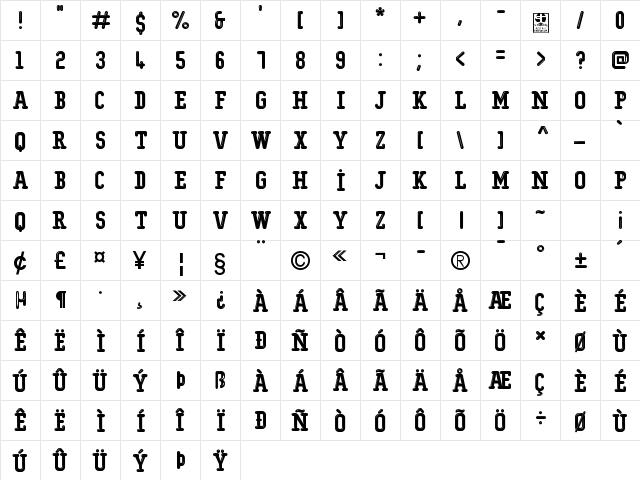
Typo College Shining Demo Regular
Design Context for Typo College Shining Demo Typeface
Typo College Shining Demo brings high-energy athletic personality to the page — its confident, muscular forms are built for impact.
Built for sports team identities, athletic apparel, event posters, and high-energy promotional material.
Font Pairing: Use alongside a condensed or geometric sans for supporting copy — keep the pairing bold, functional, and free of ornament.
Pro Tip: Typo College Shining Demo thrives on contrast — try it large, bold, and tight against a clean background for maximum visual impact.